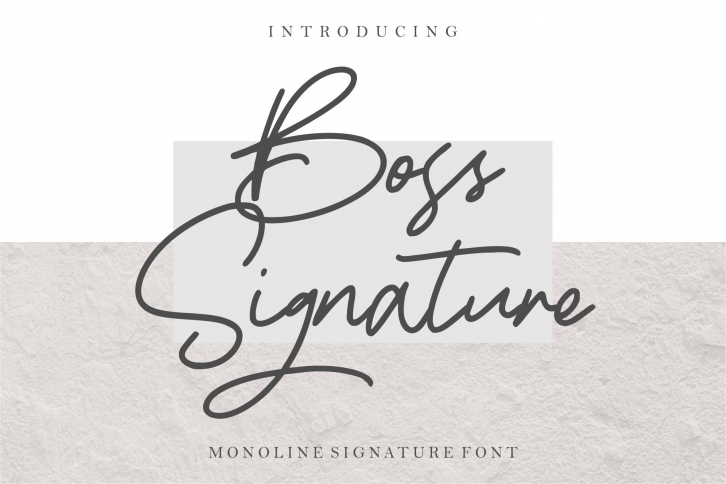
Boss Signature is a gorgeous font that was realeased on June 25, 2019. The font can be used in many style contexts and design environments. Perfect for invitations, magazines, websites, logos, and more! It was designed by Good Java Studio and the file size is 10.55 MB. Thanks for checking out this font!